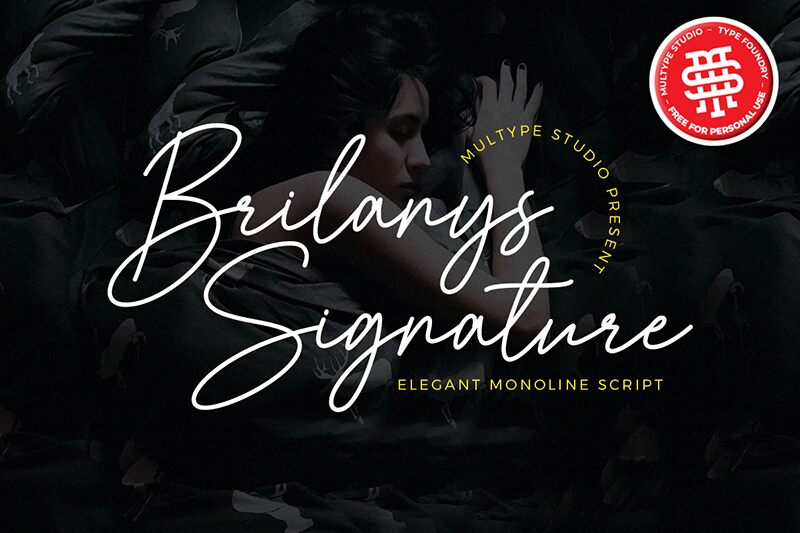
Brilanys Signature, crafted by the artisans at Multype Studio, stands as a paragon of handwritten elegance. This light-weight font embodies the personal touch of signature style, boasting unique curves that mimic the graceful movement of ink across paper. Designed to add a stroke of sophistication to any project, Brilanys Signature comes fully equipped with an array of characters-uppercase and lowercase letters, symbols, numbers-and even includes ligatures for that authentic cursive connection.
Its versatility shines in a multitude of creative endeavors. Whether you're capturing the essence of an intimate moment in photography watermarks or crafting bespoke social media posts that demand attention, this font delivers with flair. For entrepreneurs looking to infuse their brand identity with warmth and personality or couples seeking an invitation imbued with romance for their special day, Brilanys Signature is poised to transcend expectations.
Embrace the handwriting taste that elevates your designs from mere concepts to captivating experiences with Brilanys Signature-a font where artistry meets accessibility.